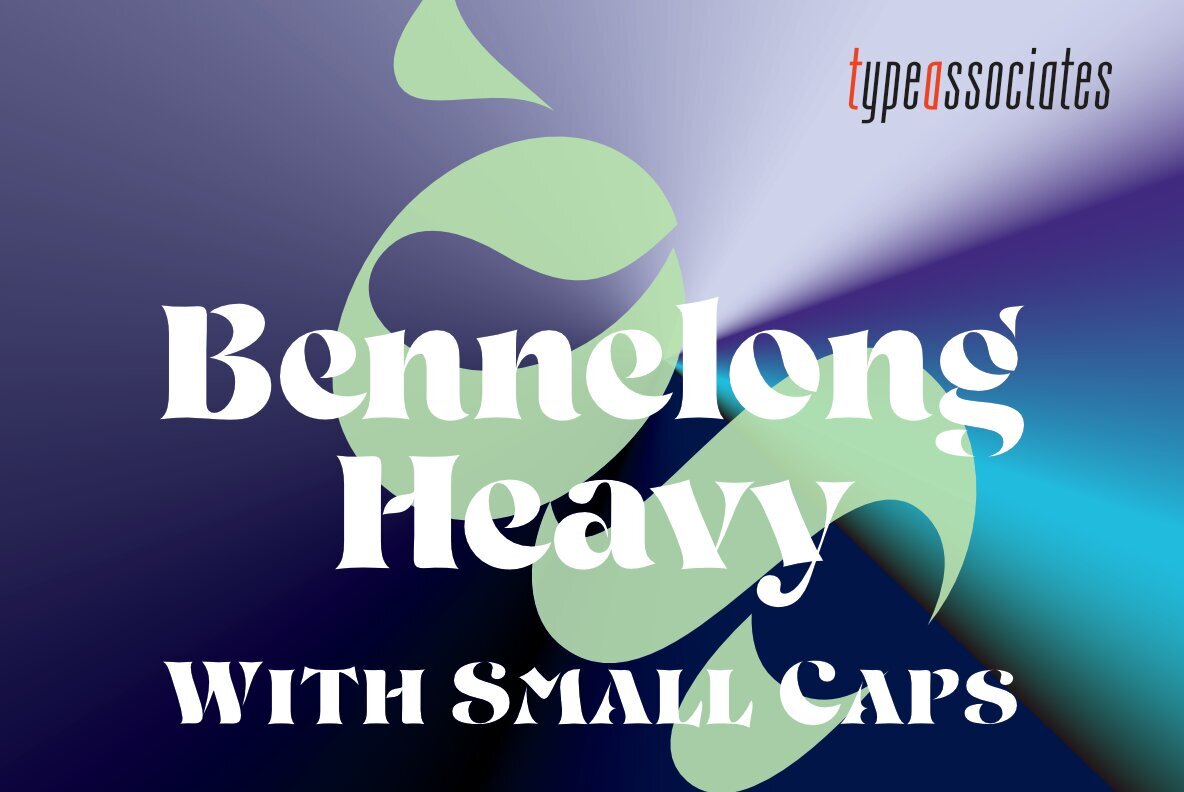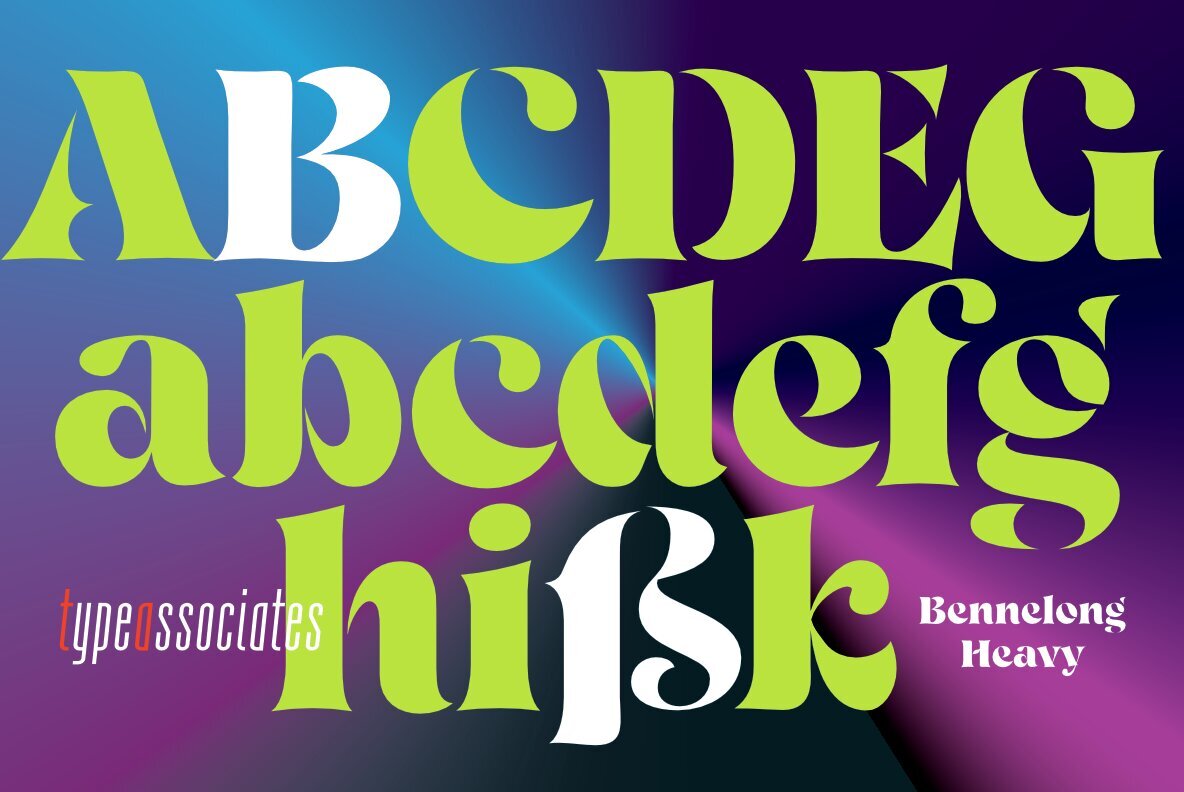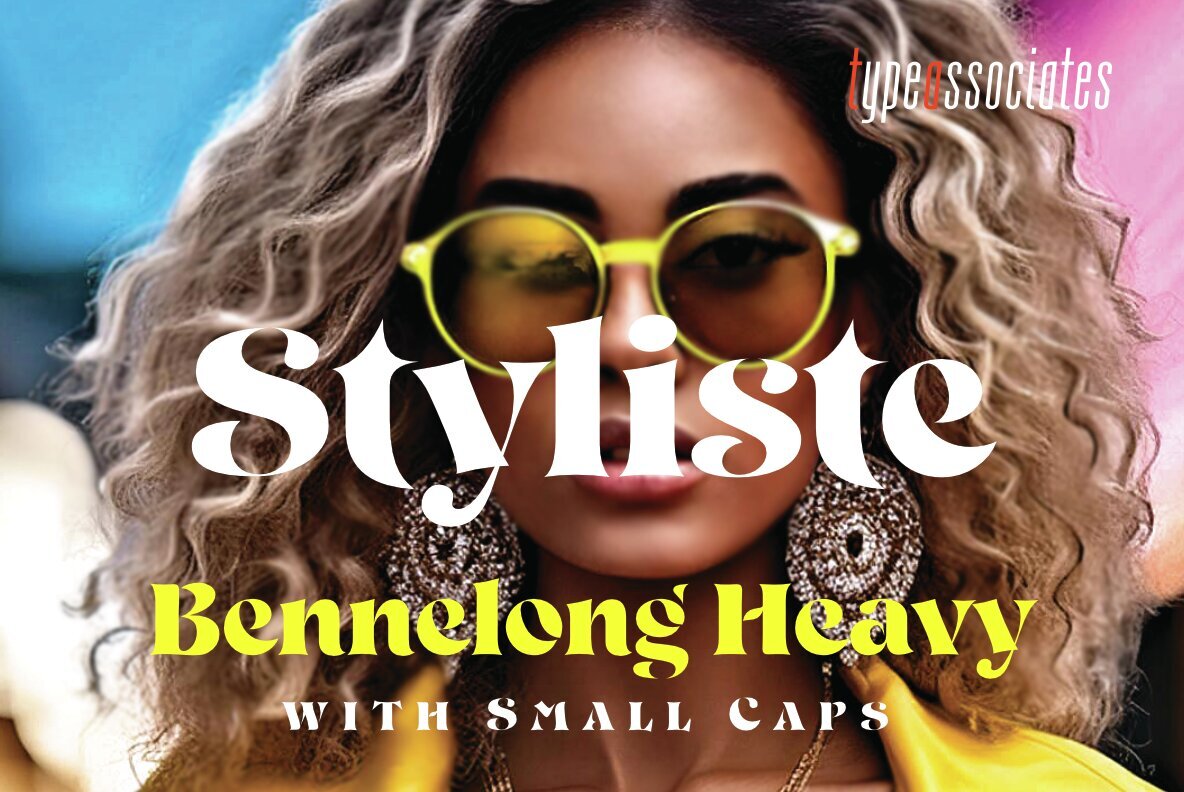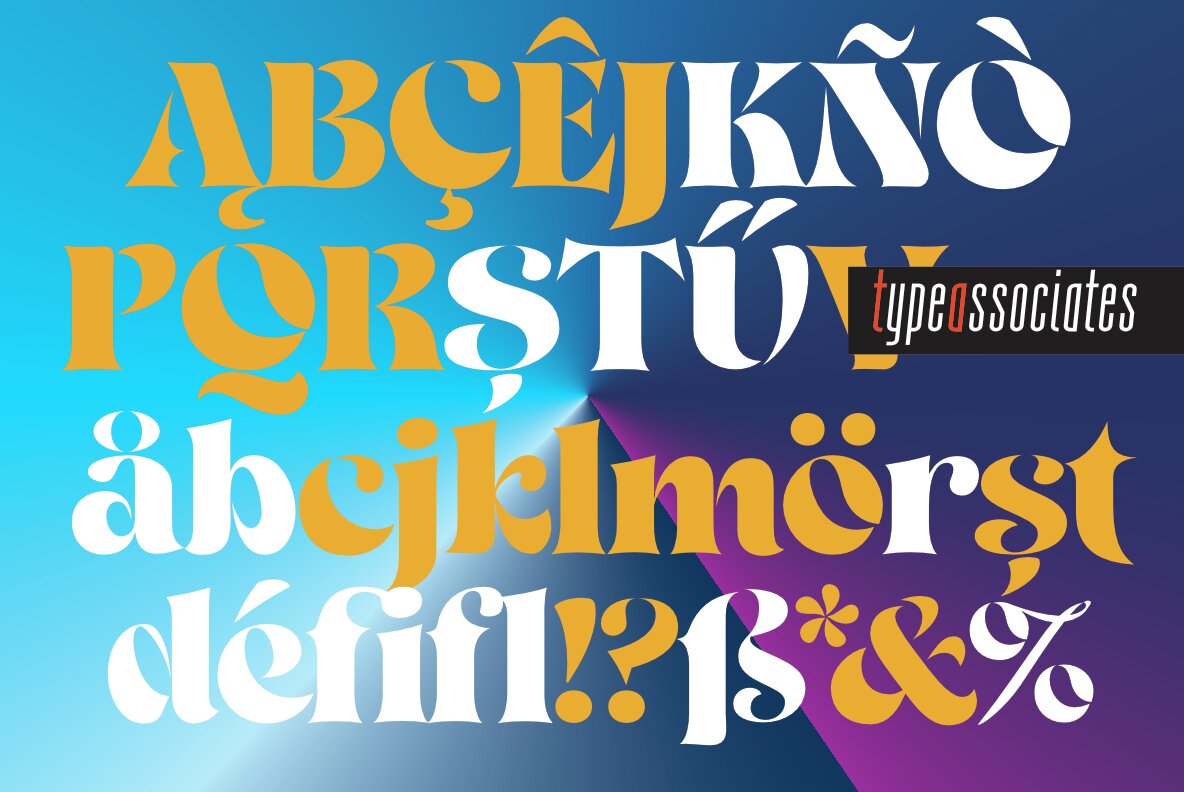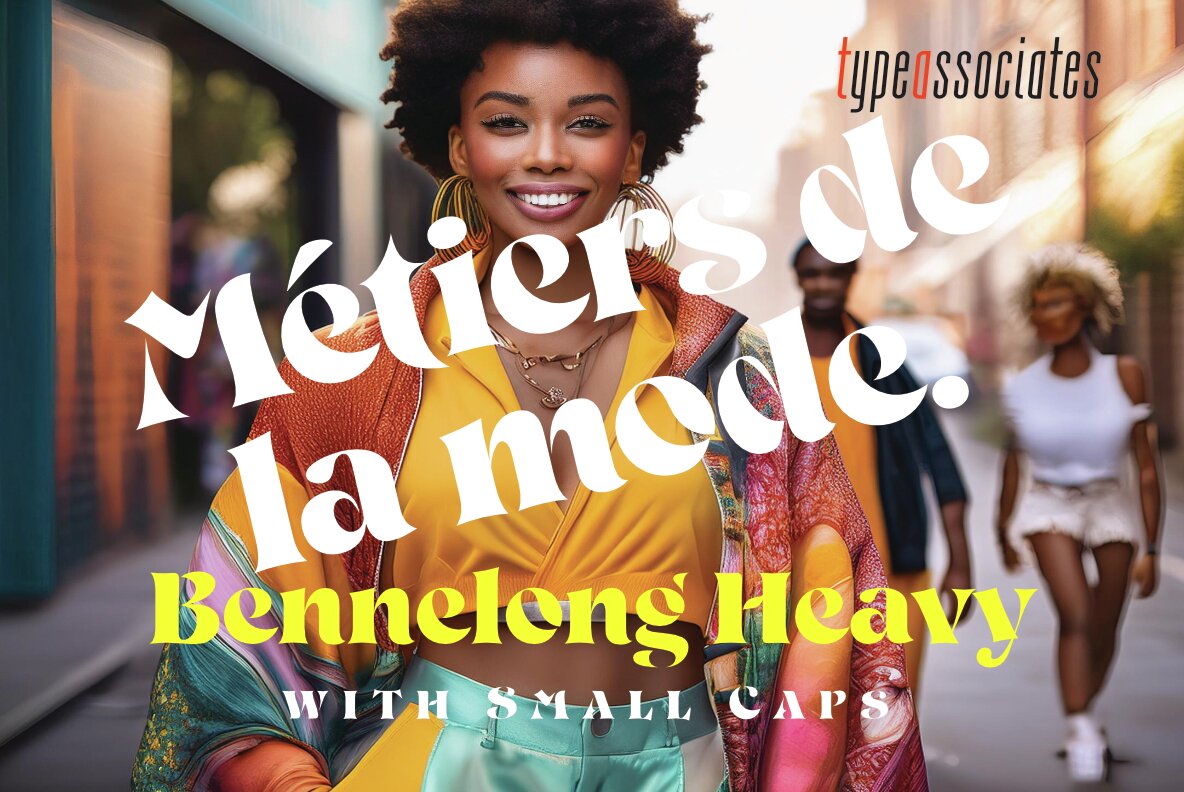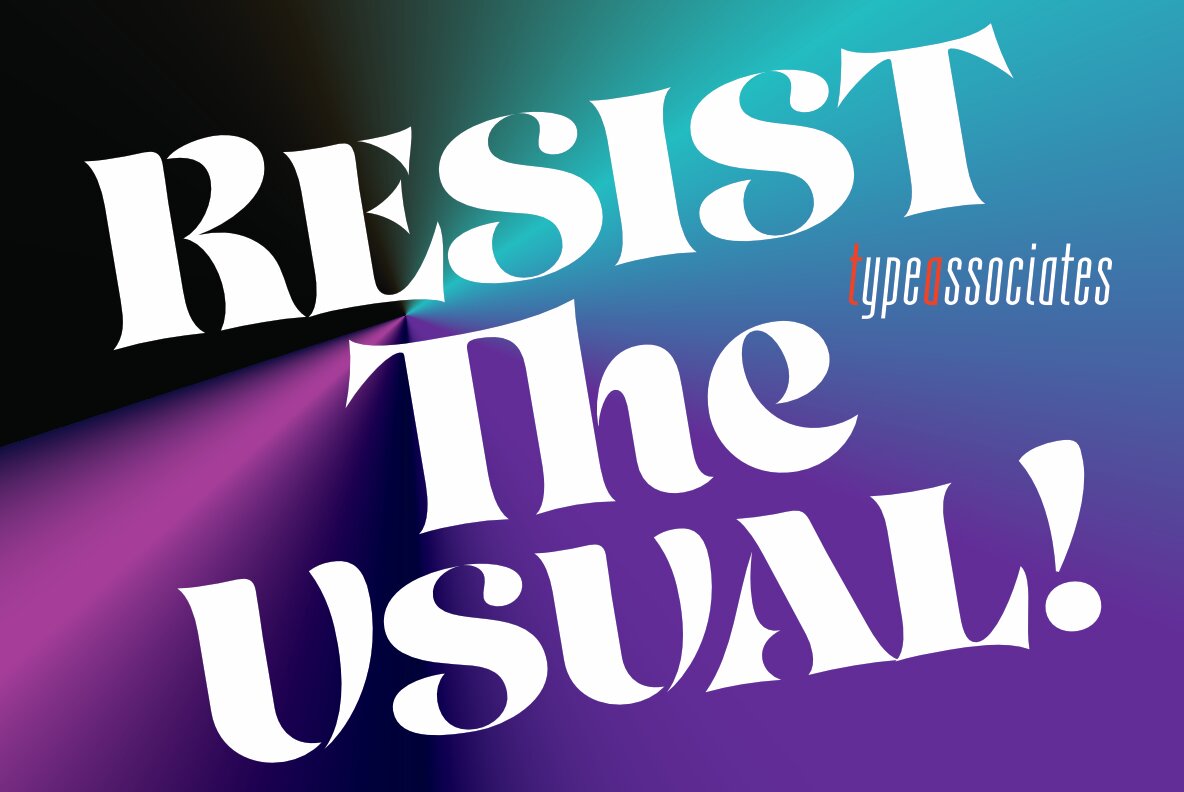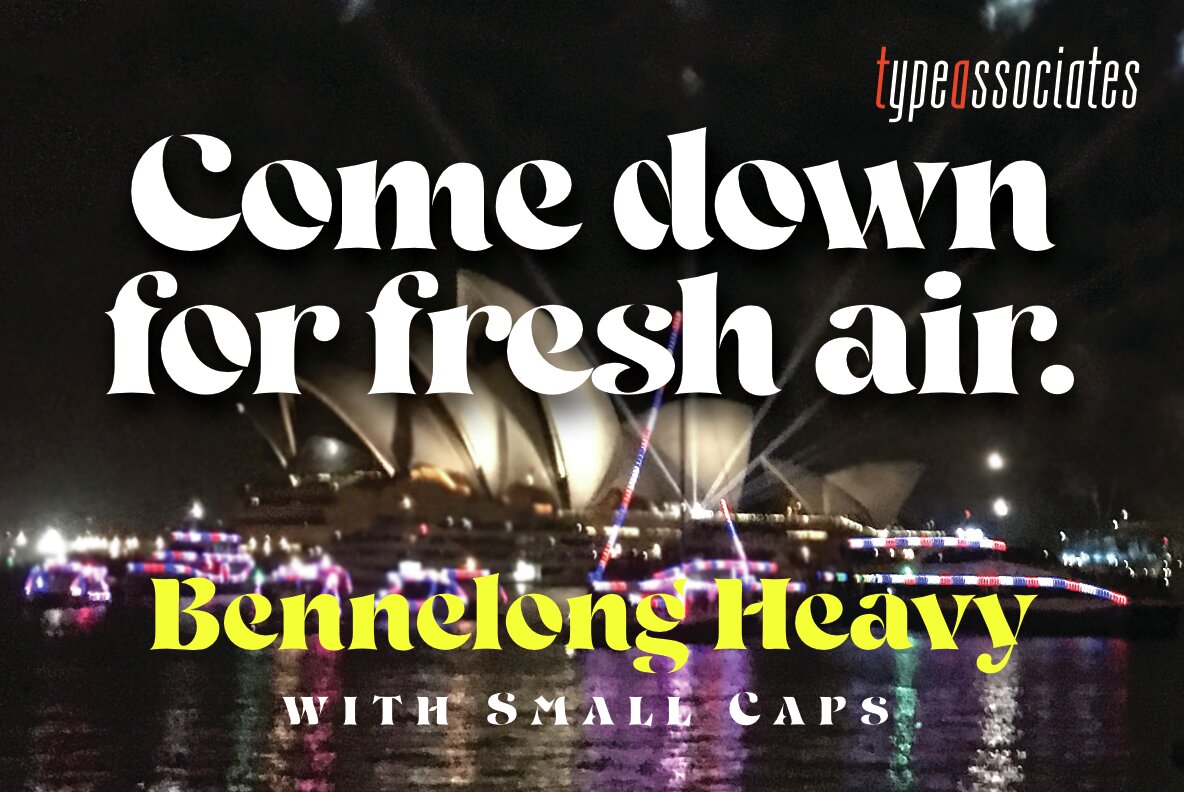
Bennelong Heavy Font
Bennelong Heavy
Bennelong Heavy with Small Caps began as an engaging lettering project and has gracefully developed into a distinctive font. With its spiky serifs and playful terminals, it brings a bold yet refined atmosphere to any design, ensuring sophistication without falling into cliché. Named after a key figure in Australia's early colonial history, Bennelong stands as a symbol of cultural dialogue and significance. The font also draws a contemporary parallel with the iconic Sydney Opera House, emphasizing its blend of tradition and modernism. Crafted with a complete suite of accented glyphs, Bennelong Heavy supports 126 Latin-based languages, alongside versatile small-caps. It transitions seamlessly from semi-display text to striking poster headlines, making it a flexible choice for various projects. From food and beverage branding to fashion, cosmetics, and beyond, its high contrast and generous x-height ensure your content stands out. With its distinctive design, Bennelong not only captures attention but also enhances product appeal across diverse visual mediums.Bennelong Heavy: A Typeface with Elegance and Charm